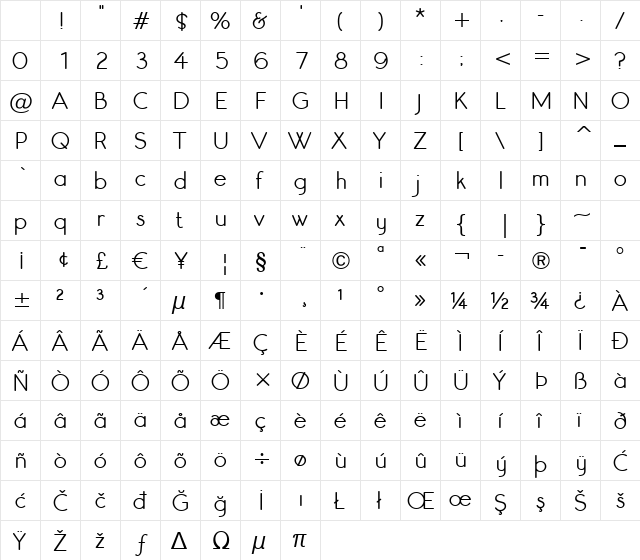
Register Sans BTN Dm Regular
Design Context for Register Sans BTN Dm
Register Sans BTN Dm is a composed and adaptable typeface that performs quietly and consistently across a wide range of design contexts.
Pro Tip: Use Register Sans BTN Dm in both headline and body roles to test its range before committing to a single application.